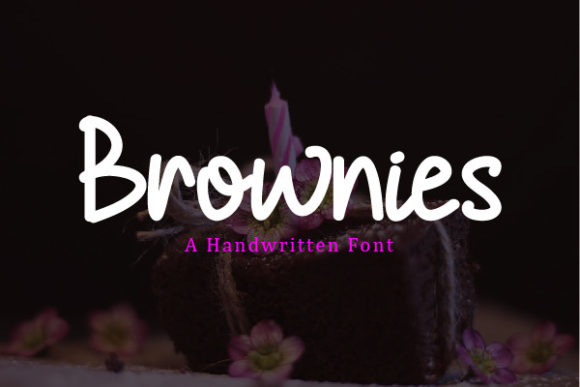
Brownies Font
About Brownies Font
Brownies is a cute, simple and clean handwritten font. It’s fun and it works great on comic designs, posters, or quote posters. Use it for your most creative projects, and you will love the results!